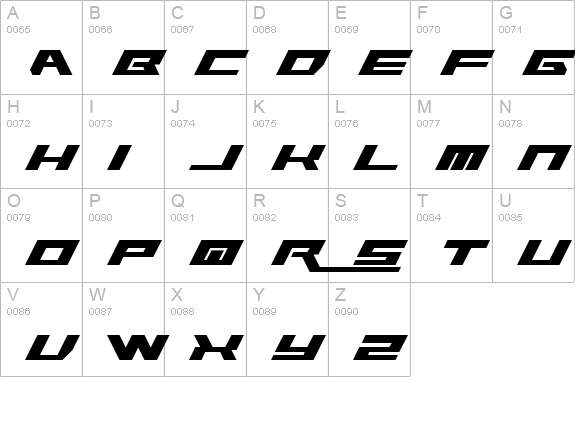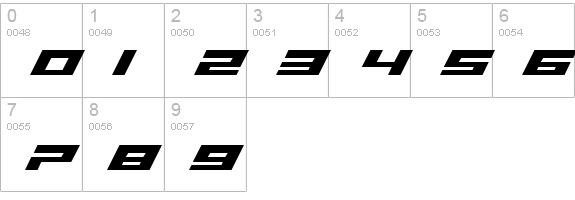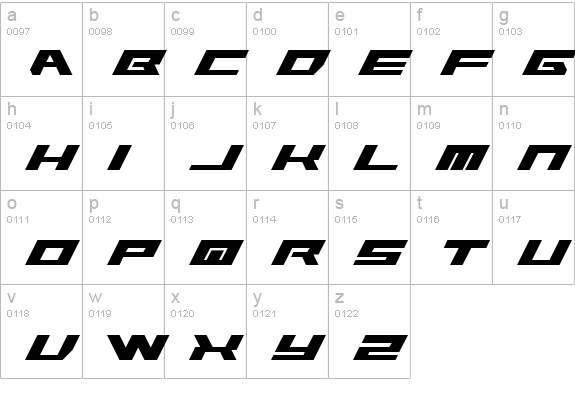
Rawhide Raw 2012 Regular is the standard, neutral variant in the Rawhide typeface family \xE2\x80\x94 well suited to general body text, paragraphs, and standard typographic work.
Rawhide Raw 2012 Regular font is a versatile and modern typeface that exudes a raw and edgy aesthetic. With its clean lines and bold strokes, this font is perfect for creating eye-catching designs that demand attention. Whether you're working on a poster, logo, or website, Rawhide Raw 2012 Regular font will add a touch of sophistication and style to your project. Best of all, this font is available for free download at FontsMarket.com. You can easily access this unique font and unleash your creativity without any cost. Don't miss out on the opportunity to enhance your designs with the striking Rawhide Raw 2012 Regular font – download it now and take your projects to the next level.